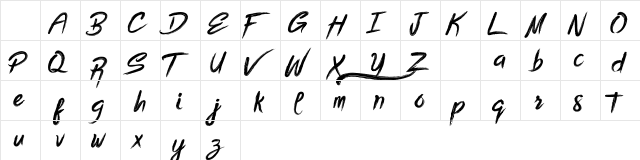
Complete Bottomless Script Regular glyph index. Displaying only characters natively supported by Bottomless Script Regular font.
Bottomless Script flows with the natural rhythm of handwritten lettering, making it ideal for designs that call for warmth and personal expression.
Font Pairing: Combine Bottomless Script with a simple geometric sans for maximum contrast - the tension between flowing curves and clean structure is a classic typographic pairing.
Pro Tip: Use Bottomless Script for short runs of text - names, titles, or taglines. Extended body copy in script faces tires the eye quickly.